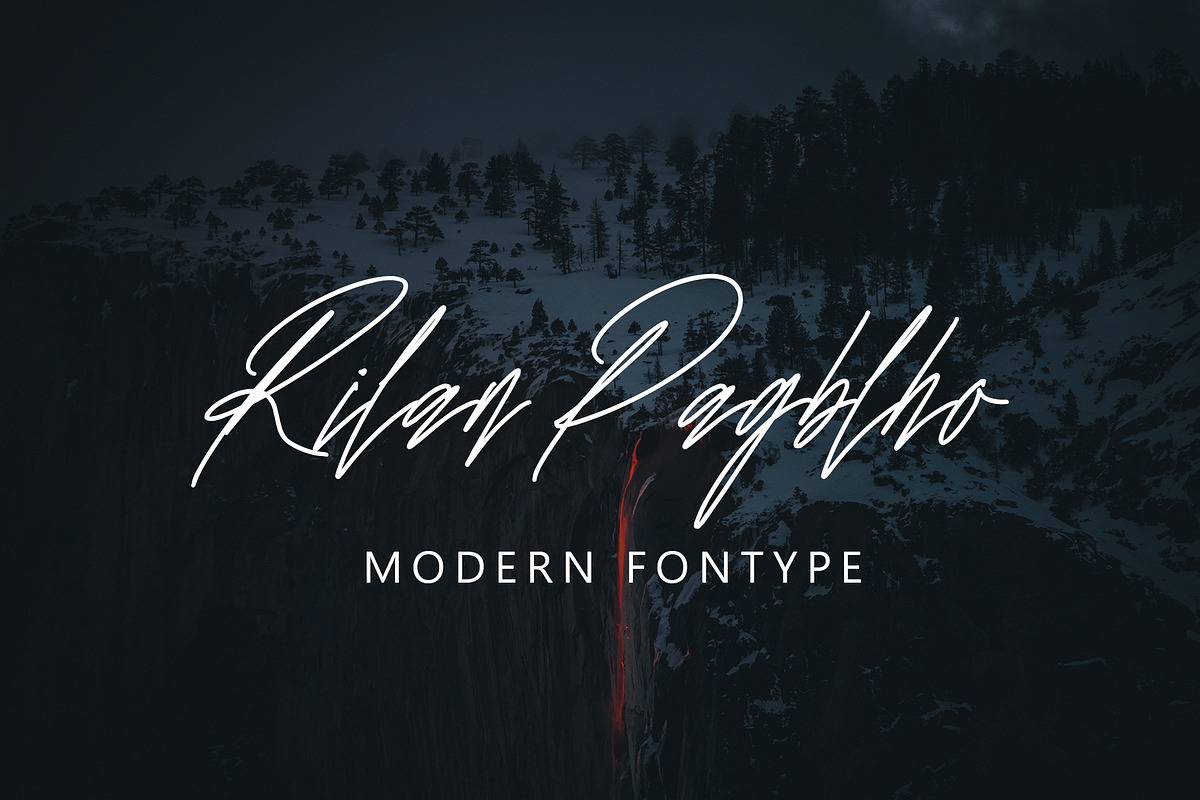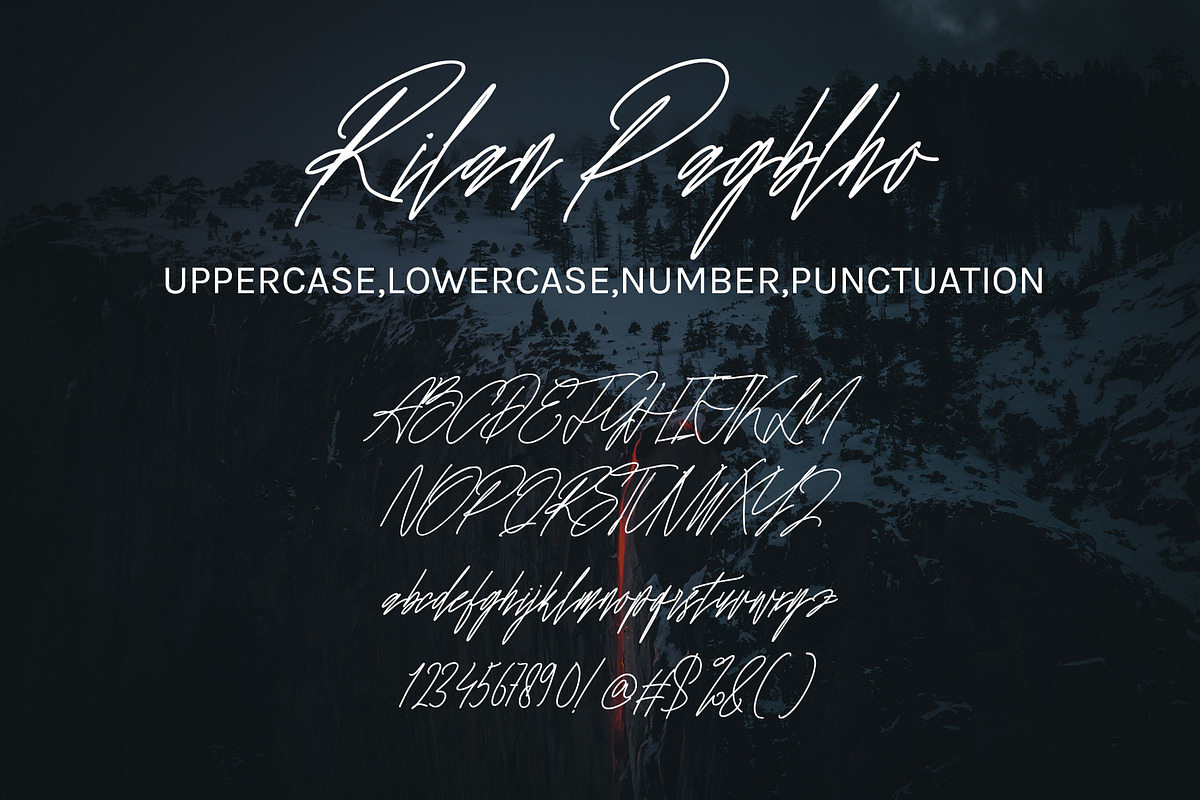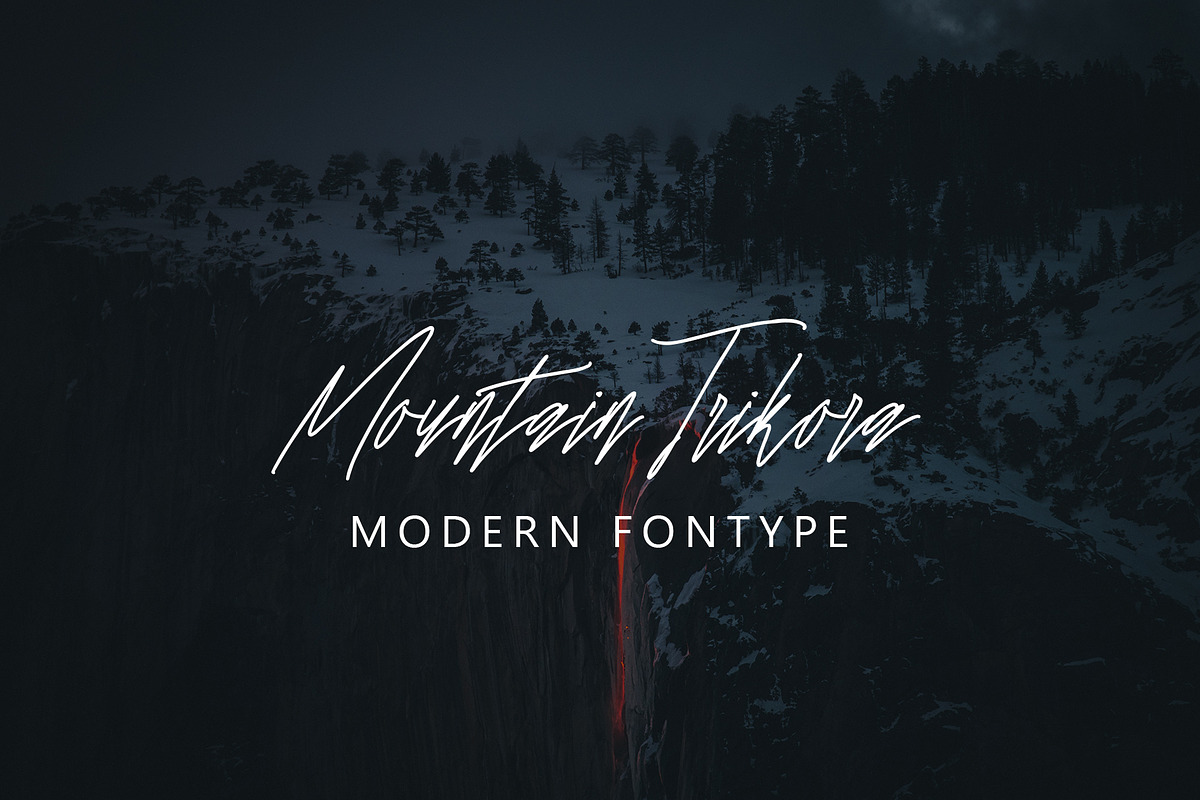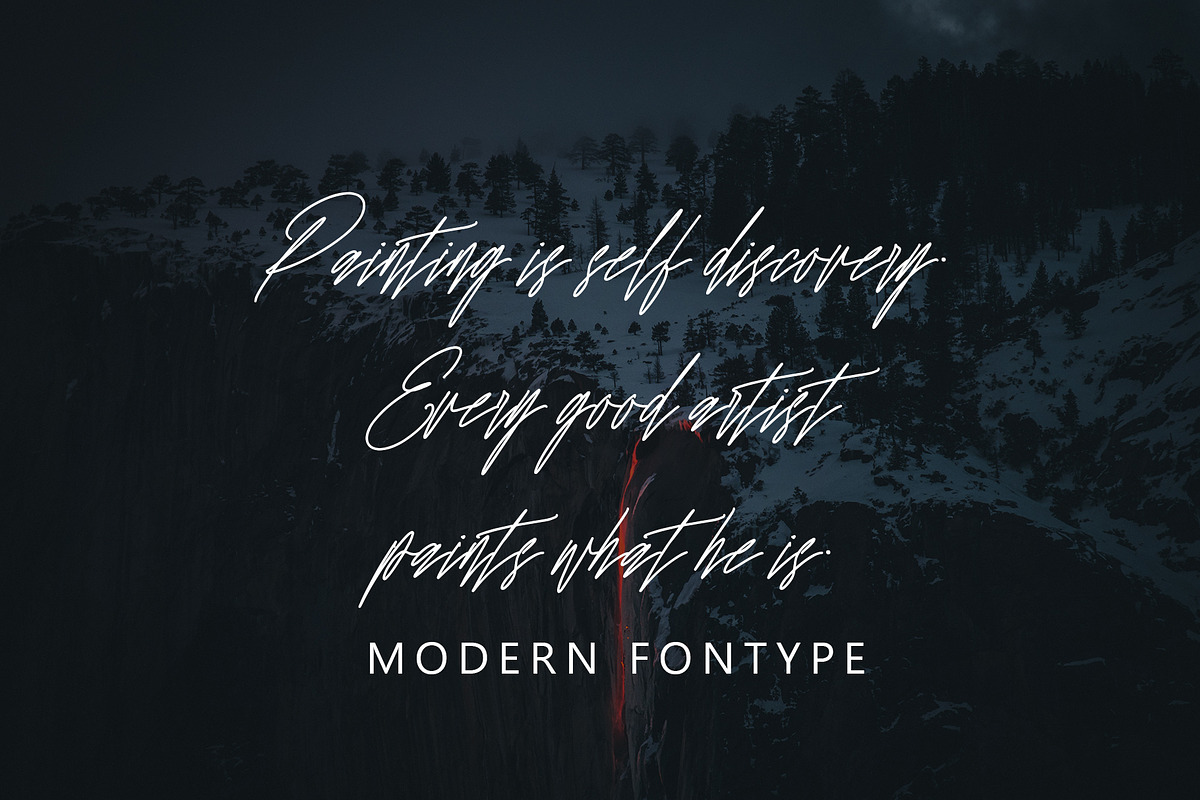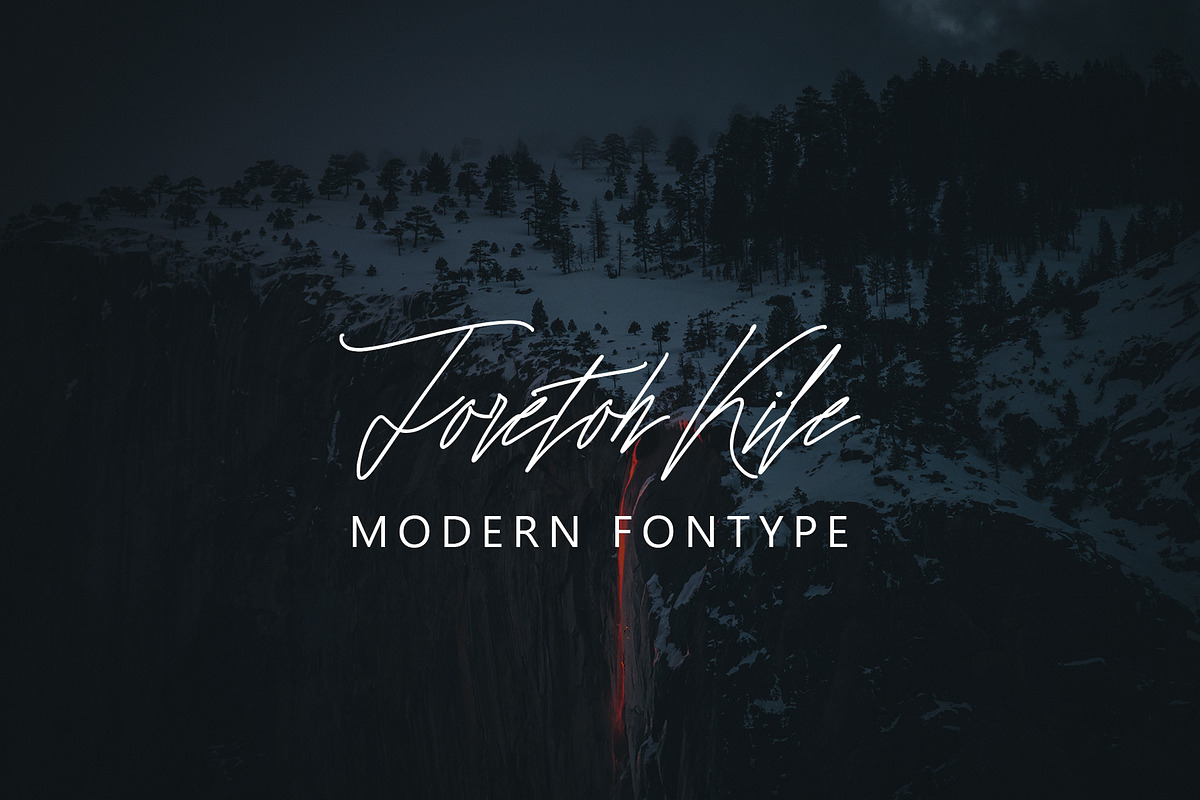
Rilan Pagblho
Rilan Pagblho with new style, this font will perfect for many different project ex: quotes, logo, blog header, poster, banding, letter, invitation, stationery, etc...